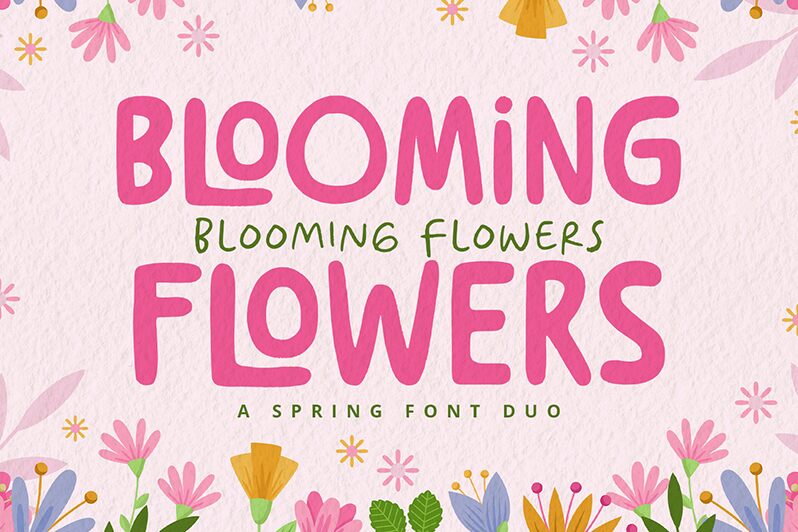
Blooming Flowers
Blooming Flowers font by Alpaprana Studio is a free display font with a cartoon style that showcases rounded, organic letters. The retro-inspired design of this setup leads to a soft aesthetic and a friendly tone in its texts, making its effects not only shown but also felt by observers. So create with ease as your texts bloom before audiences!
This lively resource is all about fun and Blooming Flowers allows you to enjoy it every step of the way. Use it for album covers or take it to the stage with book covers, game designs, comics and animated series/end credits/cover art for social media posts (especially Instagram), online platforms promotions for channels like Twitch or Youtube/MPLS visuals for mobile widgets applications interfaces etc…